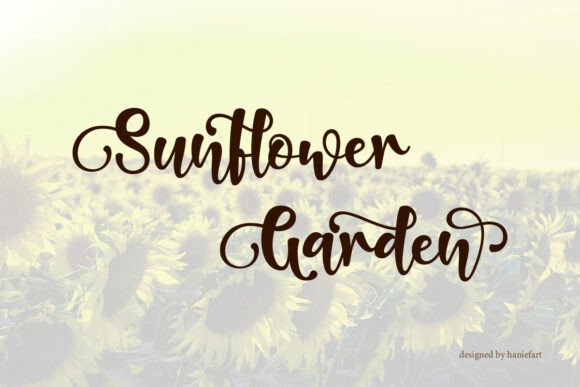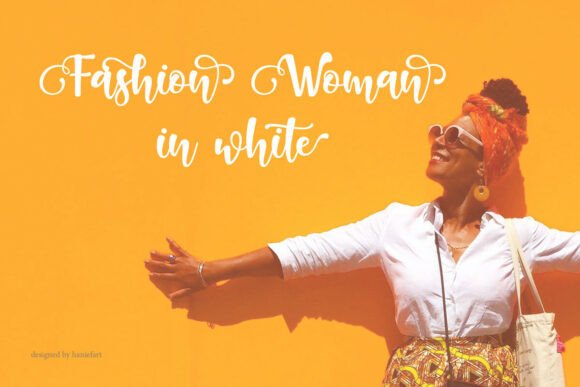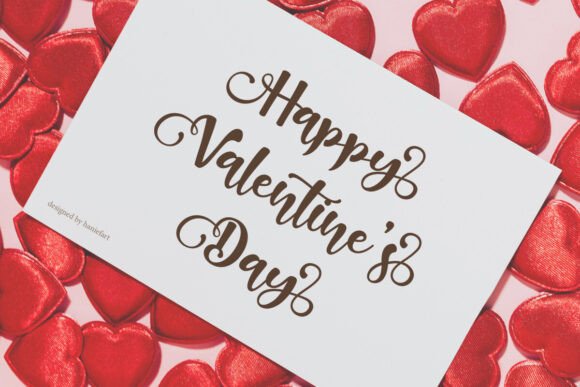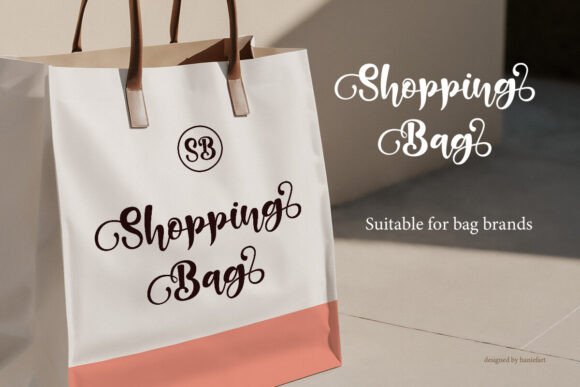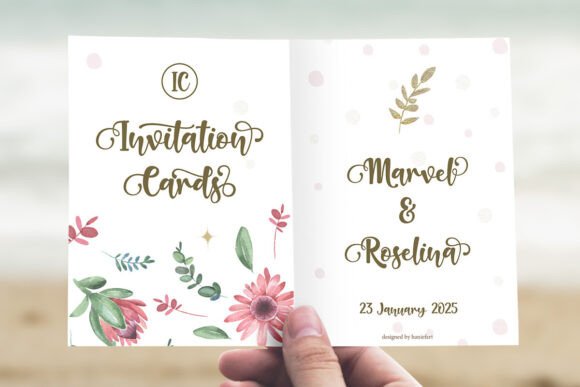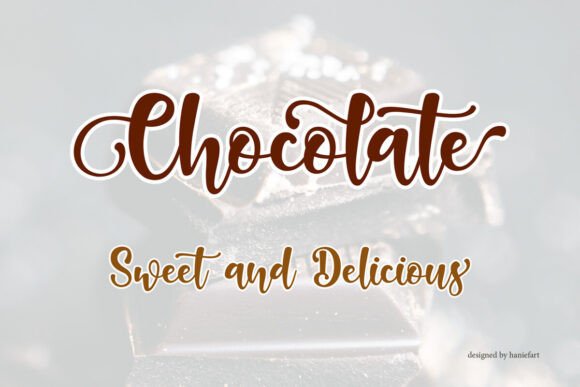
Unlocking the Artistic Potential of Agrista Font
I’ll never forget the moment I stumbled upon Agrista Font while working on a bespoke invitation card project for a client’s wedding. The challenge was to create something that exuded elegance, sophistication, and a touch of whimsy. As I scrolled through my font library, Agrista caught my eye, and I knew I had found the perfect match. Its unique, handwritten charm instantly elevated my design, and I was able to deliver a final product that not only met but exceeded my client’s expectations.
A Personal Review of Agrista Font
What I Love About Agrista ✨
• ✅ Authentic Handwritten Charm: Agrista’s carefully crafted strokes and curves bring a genuine, human touch to any design project.
• ✅ Versatility: This adaptable typeface seamlessly blends with various projects, from magazine styles to fabric prints, logos, and flyers.
• ✅ Refined and Elegant: Agrista adds a level of sophistication to your designs, making it perfect for high-end branding, wedding invitations, and more.
• ✅ Easy to Read: Despite its artistic nature, Agrista remains highly legible, ensuring your message is conveyed clearly.
• ⚠️ Limited Use in Small Sizes: Agrista’s intricate details may not be as effective when used in very small font sizes (below 10pt).
• ⚠️ Occasional Kerning Issues: As with many handwritten fonts, some manual kerning adjustments might be necessary to achieve optimal results.
The Story Behind Agrista Font
Agrista was designed by a talented typographer who drew inspiration from traditional calligraphy and hand-lettering techniques. The goal was to create a font that exudes a sense of refinement and sophistication while maintaining a personal, human touch. Through careful craftsmanship and attention to detail, Agrista was born – a font that is both elegant and approachable.
Font Name Agrista Font
Author haniefart
Is Agrista Font suitable for body text? While Agrista is beautiful for headings and titles, it may not be the best choice for body text due to its intricate details and elegant feel.